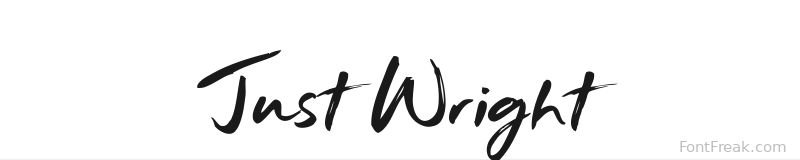
Just Wright
The Just Wright font, created by BLKBK Fonts, is a captivating handwritten style typeface that exudes a sense of personal touch and warmth. With its fluid strokes and organic flow, this font captures the essence of informal yet elegant writing, making it a delightful choice for various design projects. The stroke weight varies, providing a dynamic contrast that enhances its visual appeal, while the generous spacing between letters allows for easy readability, ensuring that it stands out in any context.
This versatile font is particularly well-suited for use cases such as wedding invitations, where its charming character can add a personal flair. It can also elevate the aesthetics of restaurant menus, giving them a unique and inviting look that draws in customers. Additionally, Just Wright shines in creating eye-catching posters for events or promotions, offering a stylish alternative to conventional typefaces. Content creators will also find it beneficial for social media graphics, as its approachable style resonates well with audiences.
Targeting graphic designers, small business owners, and content creators, Just Wright is a fantastic tool for anyone looking to infuse their projects with creativity and individuality. Its freeware licensing makes it accessible for a wide range of users, allowing for experimentation without financial commitment.
What makes the Just Wright font stand out is its ability to combine elegance with a friendly demeanor, making it suitable for both formal and casual applications. The unique handwritten quality adds a personal touch that often lacks in digital typography, ensuring that every message feels tailored and heartfelt. For those interested in enhancing their designs, the Just Wright font free download offers an excellent opportunity to elevate their creative endeavors.